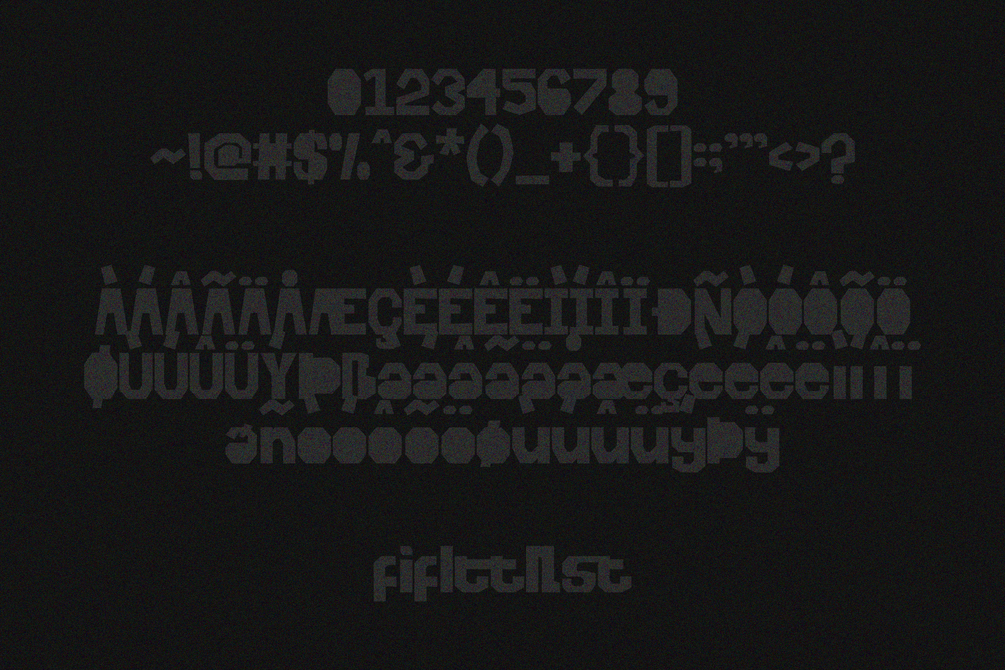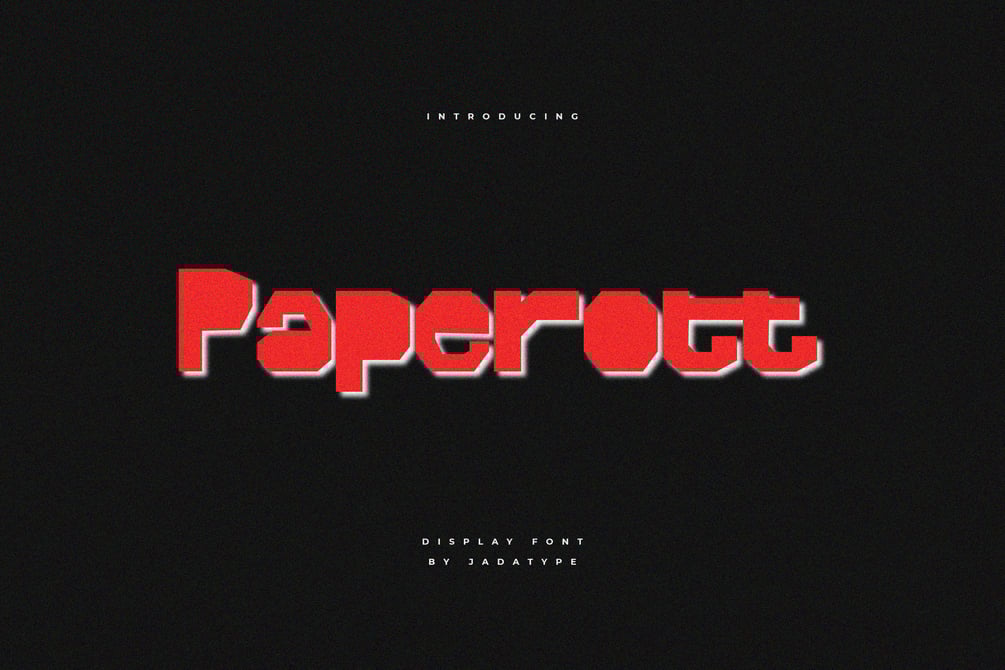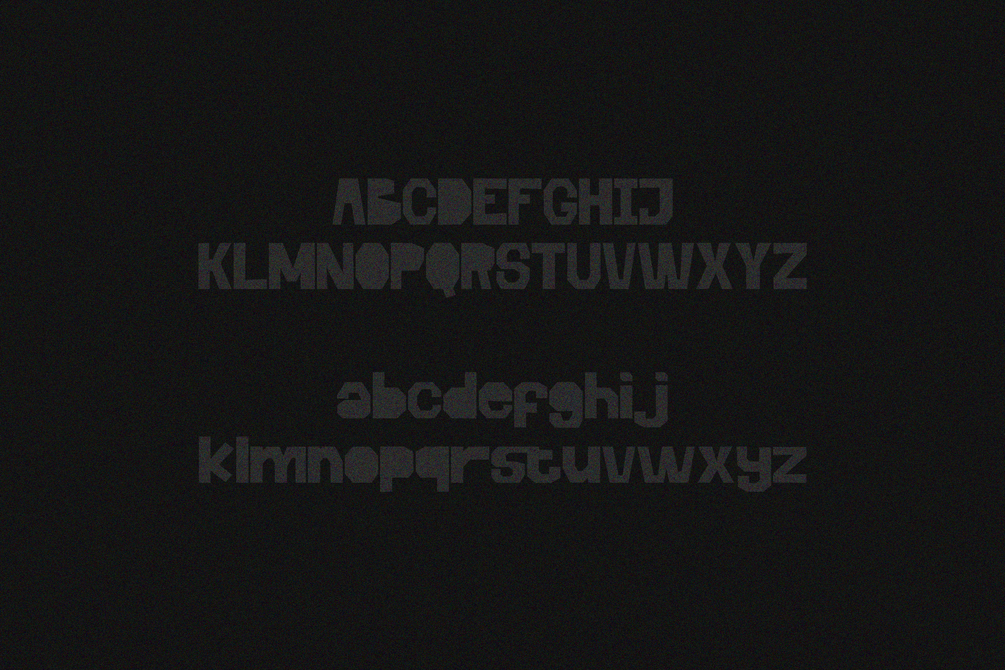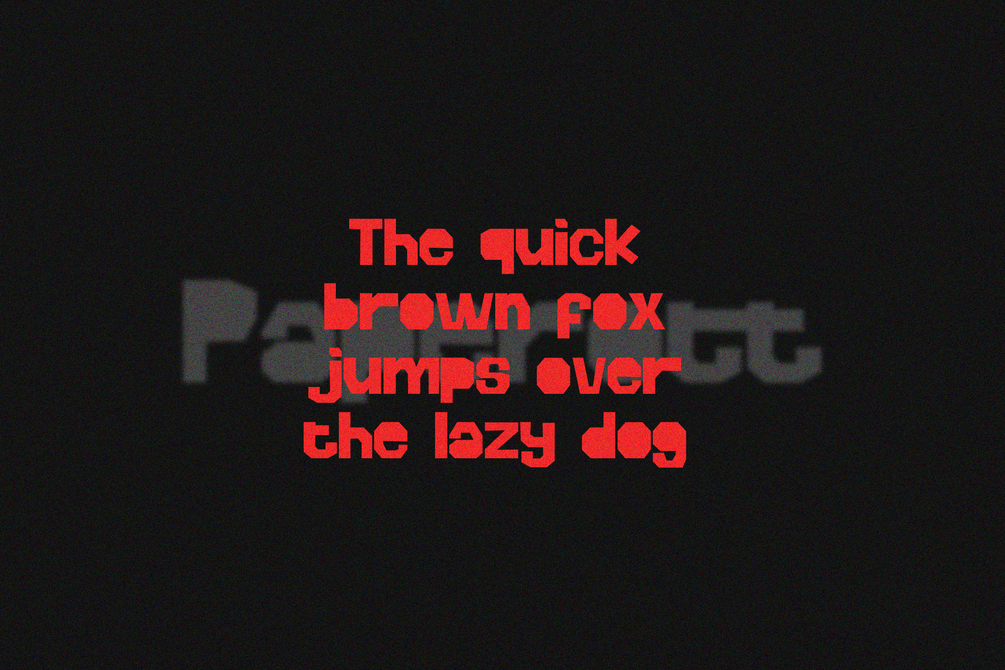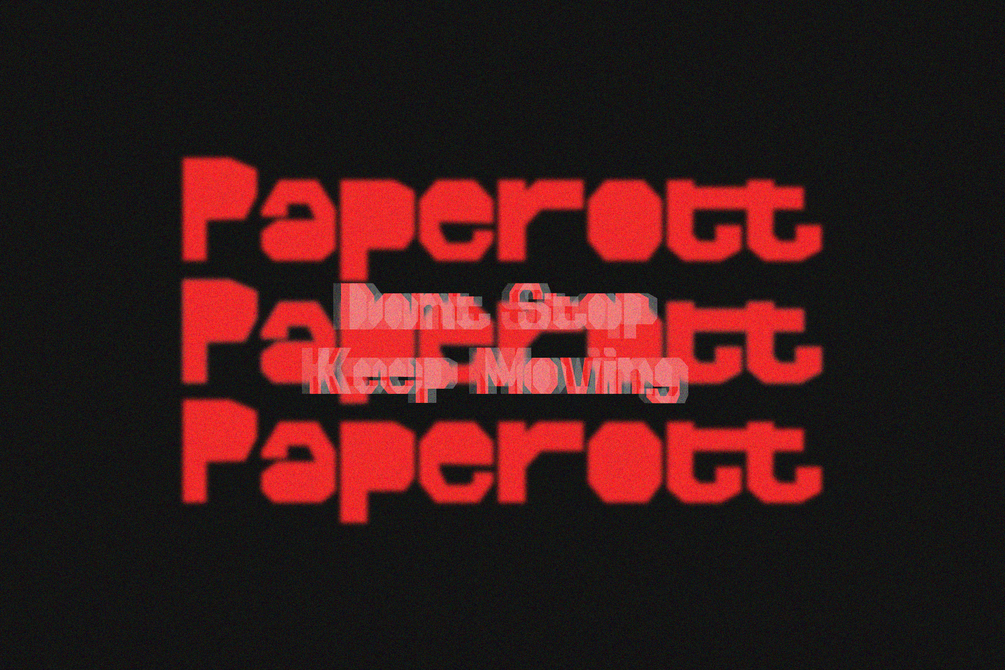
Paperott Font
Paperott is a display font that comes with a paper cut style. suitable for posters, tshirt, branding, social media, and so on. contains standard English letters, numbers, punctuation, and several accents that support multilingualism.